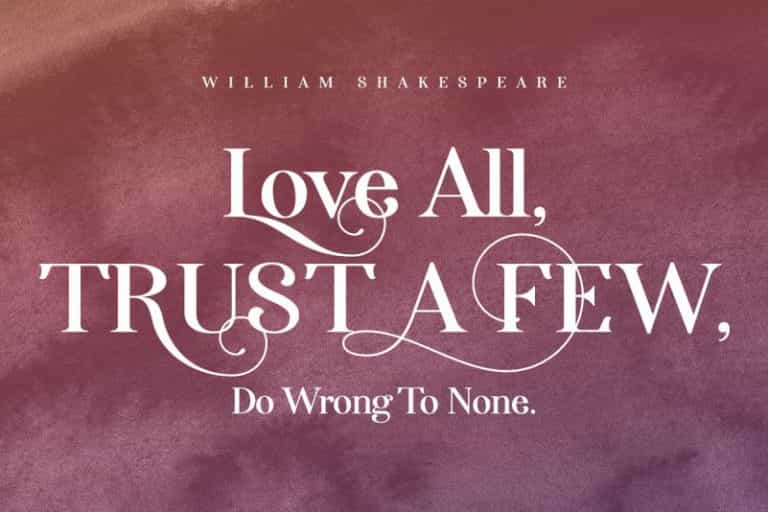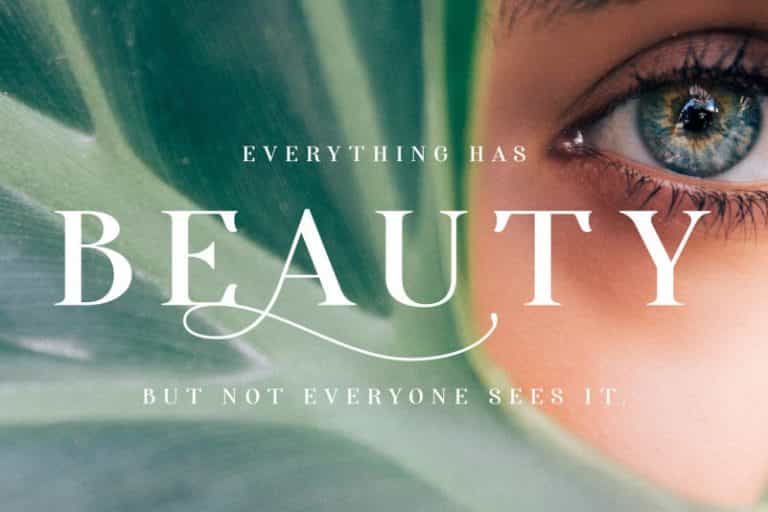
Afterglow Serif Typeface is now available; it is a very elegant and classic serif with many options that will help make your brand or presentation even more attractive!Afterglow is a font that looks great and has slim swashes which can be used in many ways to make you stand out. Some letters have as many as 12 characters!